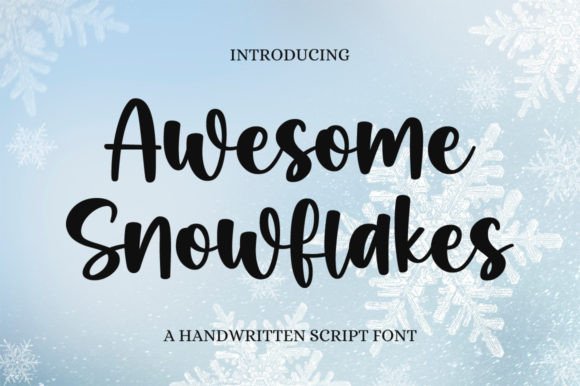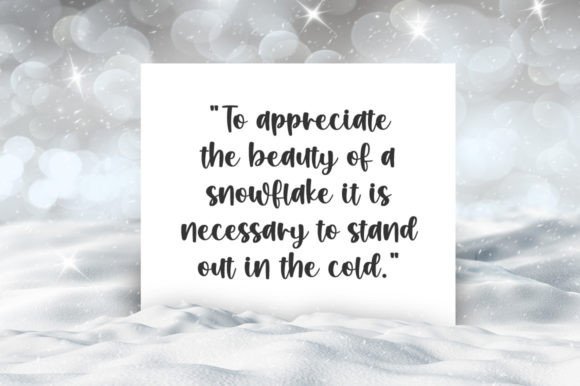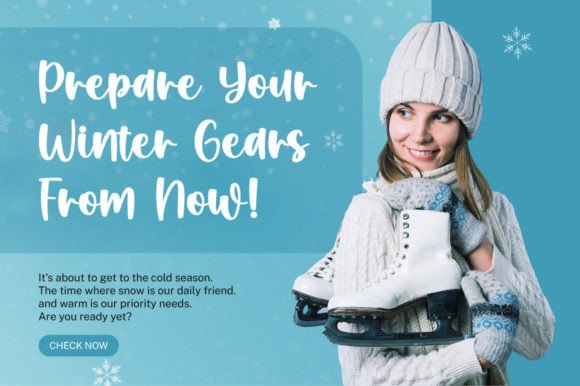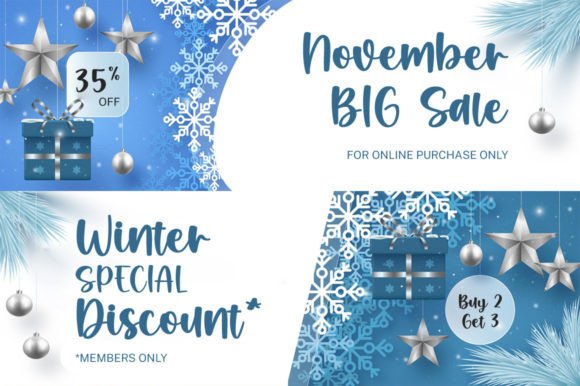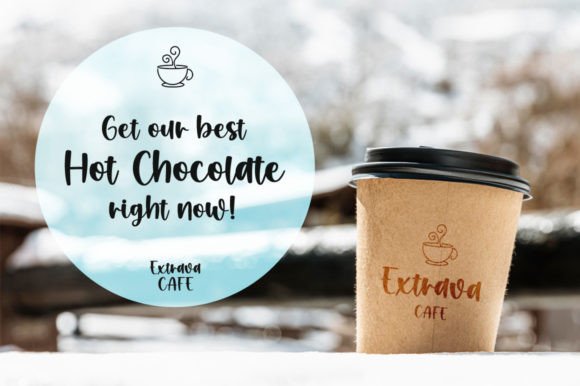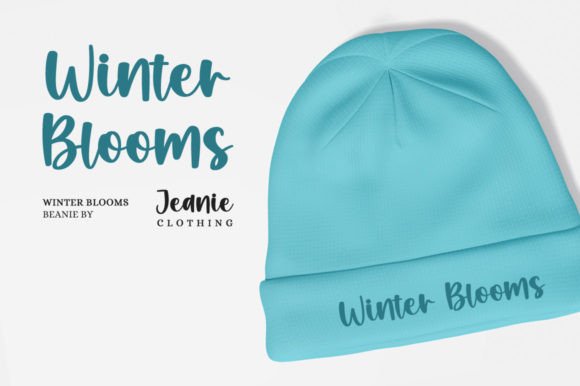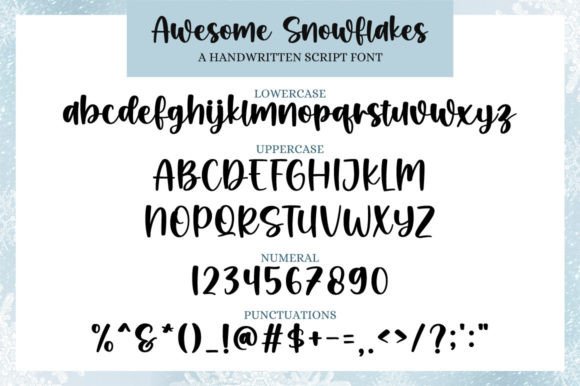
About Awesome Snowflakes Font
Awesome Snowflakes Font is a beautifully delicate and flowing handwritten typeface designed to bring charm and elegance to any design. With smooth curves and balanced spacing, this font evokes a sense of softness, making it perfect for both personal and professional use.
Thanks to its refined style, this font adapts well to projects that require a handwritten touch without sacrificing legibility.
Versatile and Winter-Inspired
Whether you’re designing for the holiday season or working on elegant branding, Awesome Snowflakes Font delivers a unique blend of charm and clarity. It pairs especially well with projects such as:
Winter greeting cards and seasonal event invitations
Holiday-themed branding and product packaging
Elegant stationery, from thank-you notes to personal letters
Logos and headlines that call for a personal touch
Quotes, posters, and crafts that need an extra layer of warmth
Its graceful lines make it a great choice when you want your text to feel polished, yet heartfelt.
Moreover, its simple but elegant forms ensure that it reads beautifully even at smaller sizes, which is a huge plus for versatile design work.